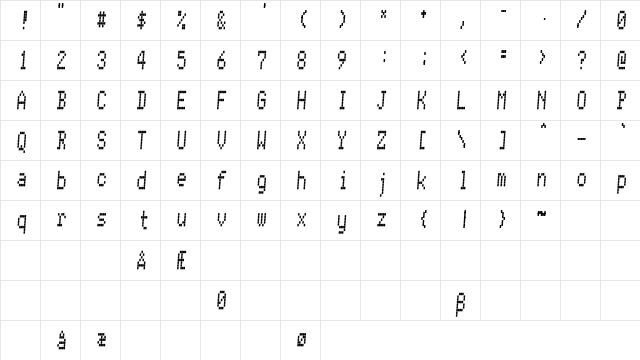
Conman Regular Regular
Design Context for Conman Regular Typeface
Conman Regular is a composed and adaptable typeface that performs quietly and consistently across a wide range of design contexts.